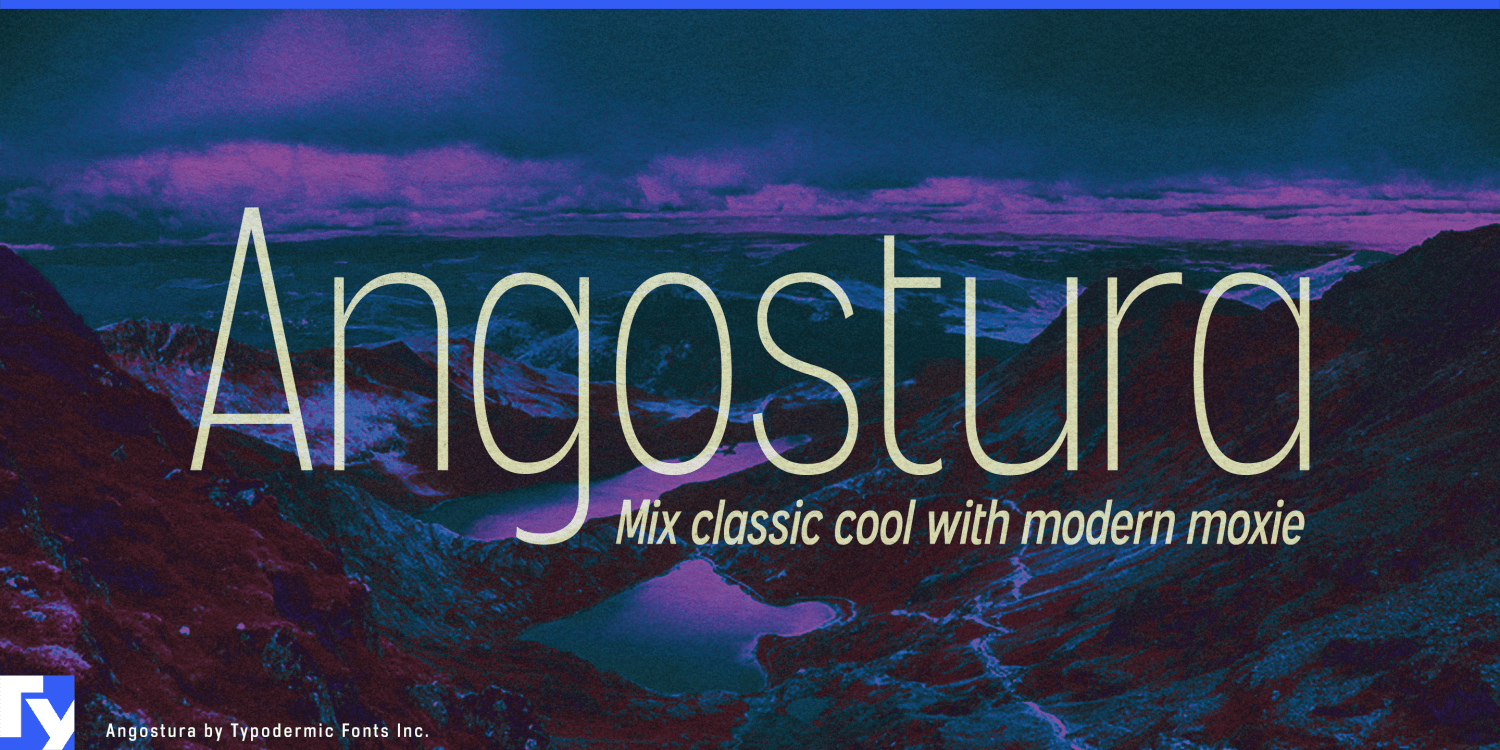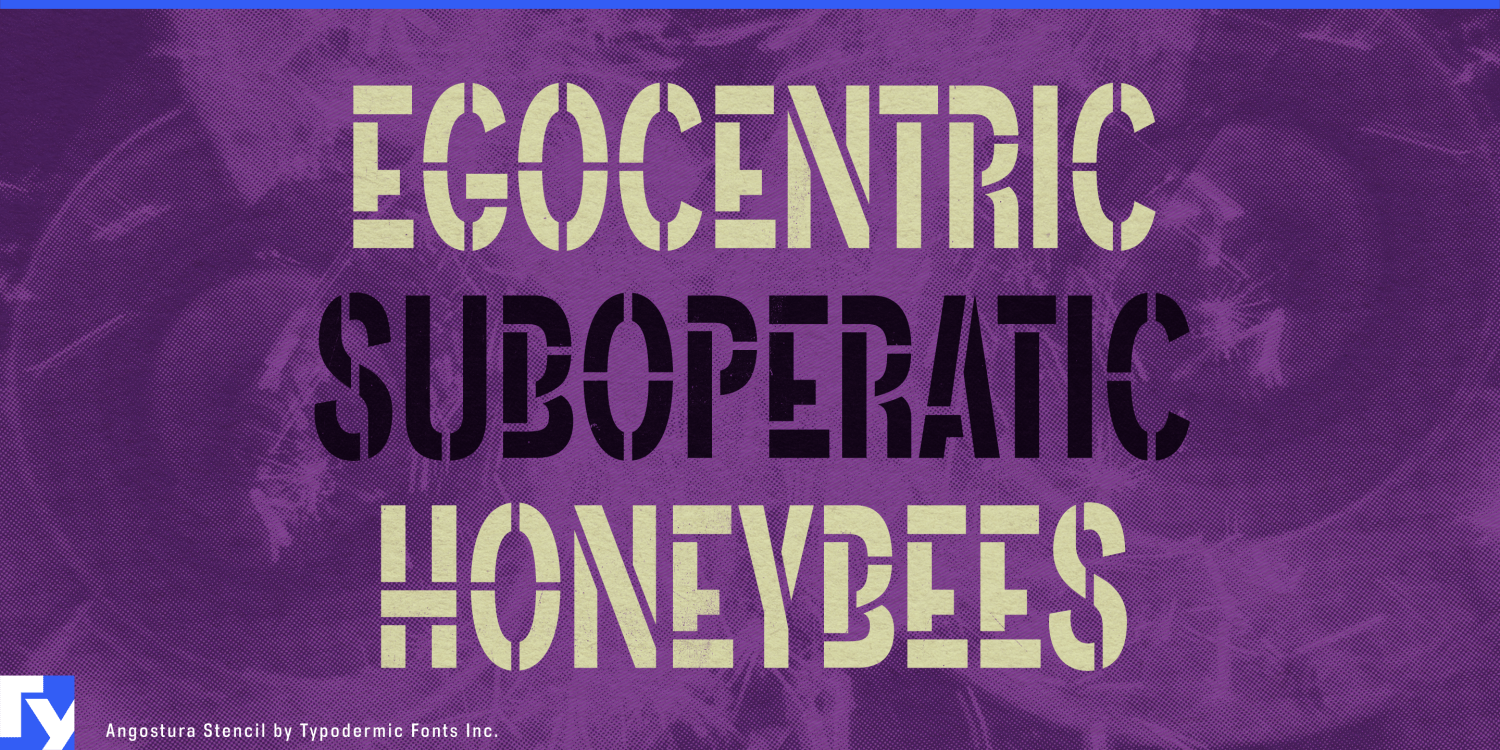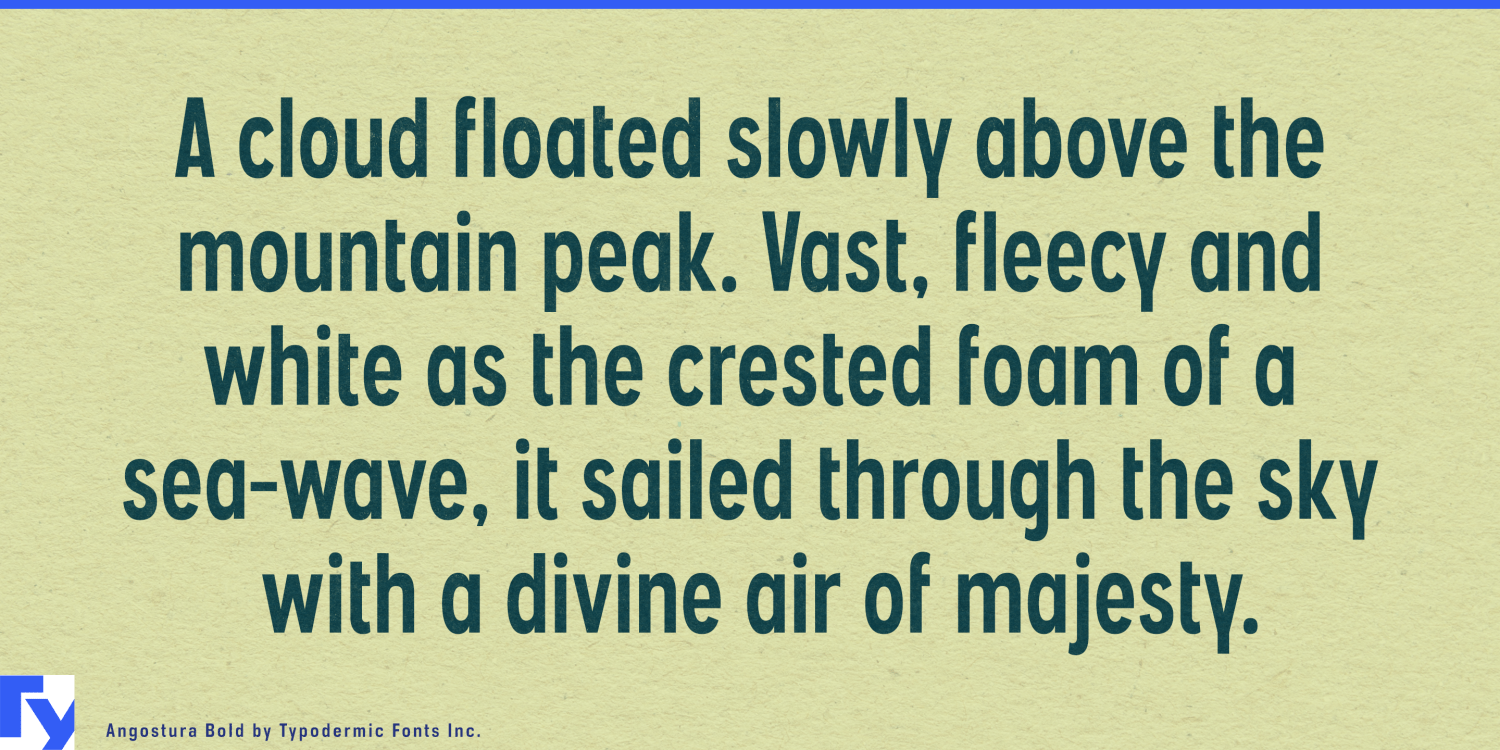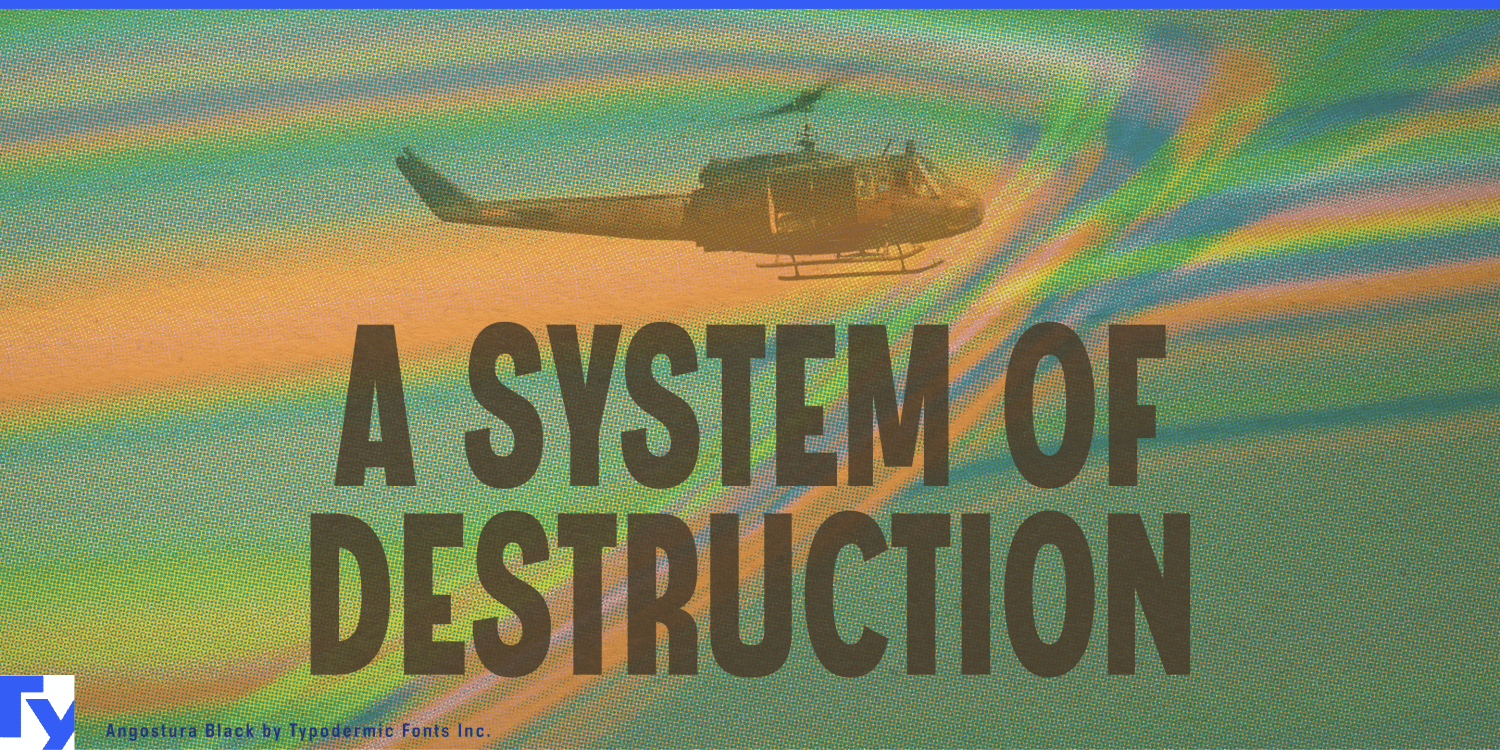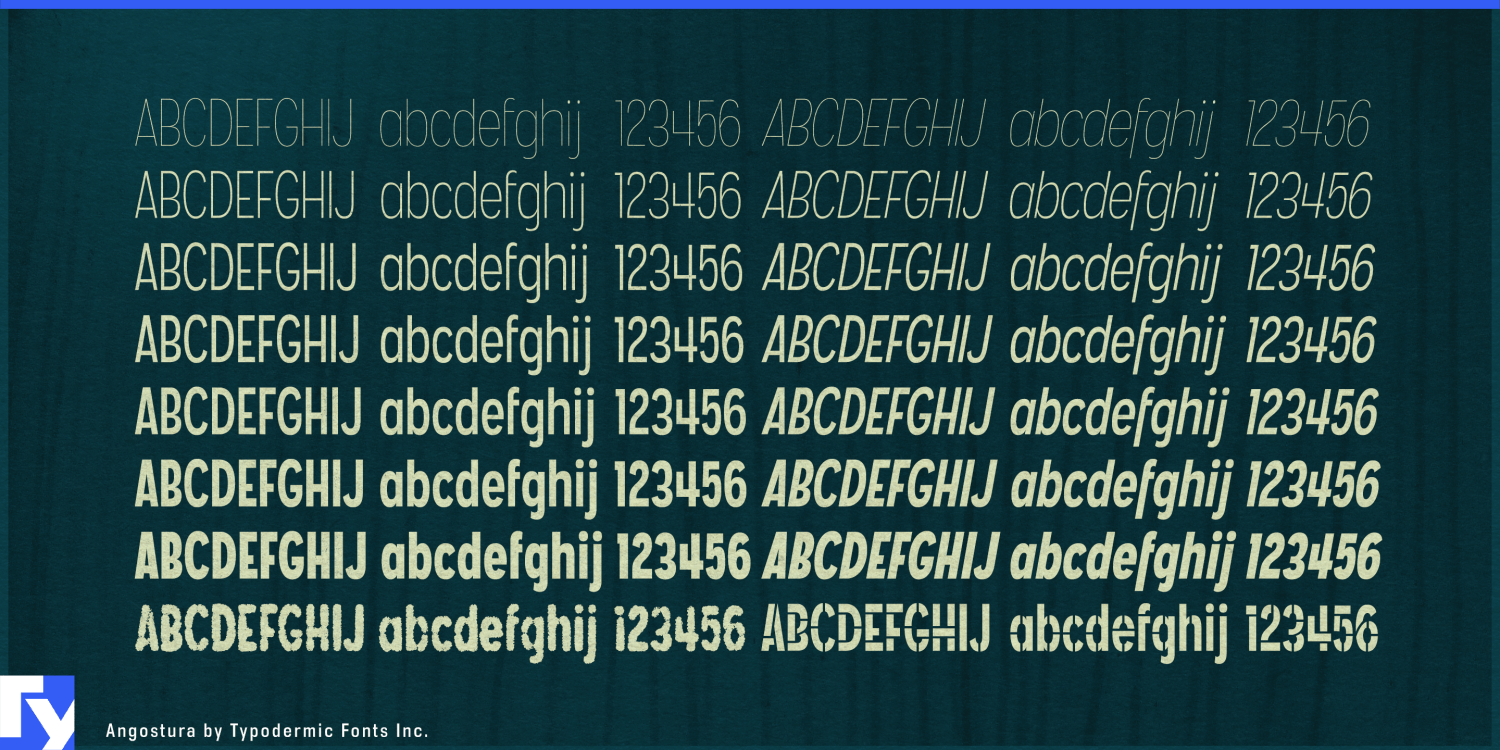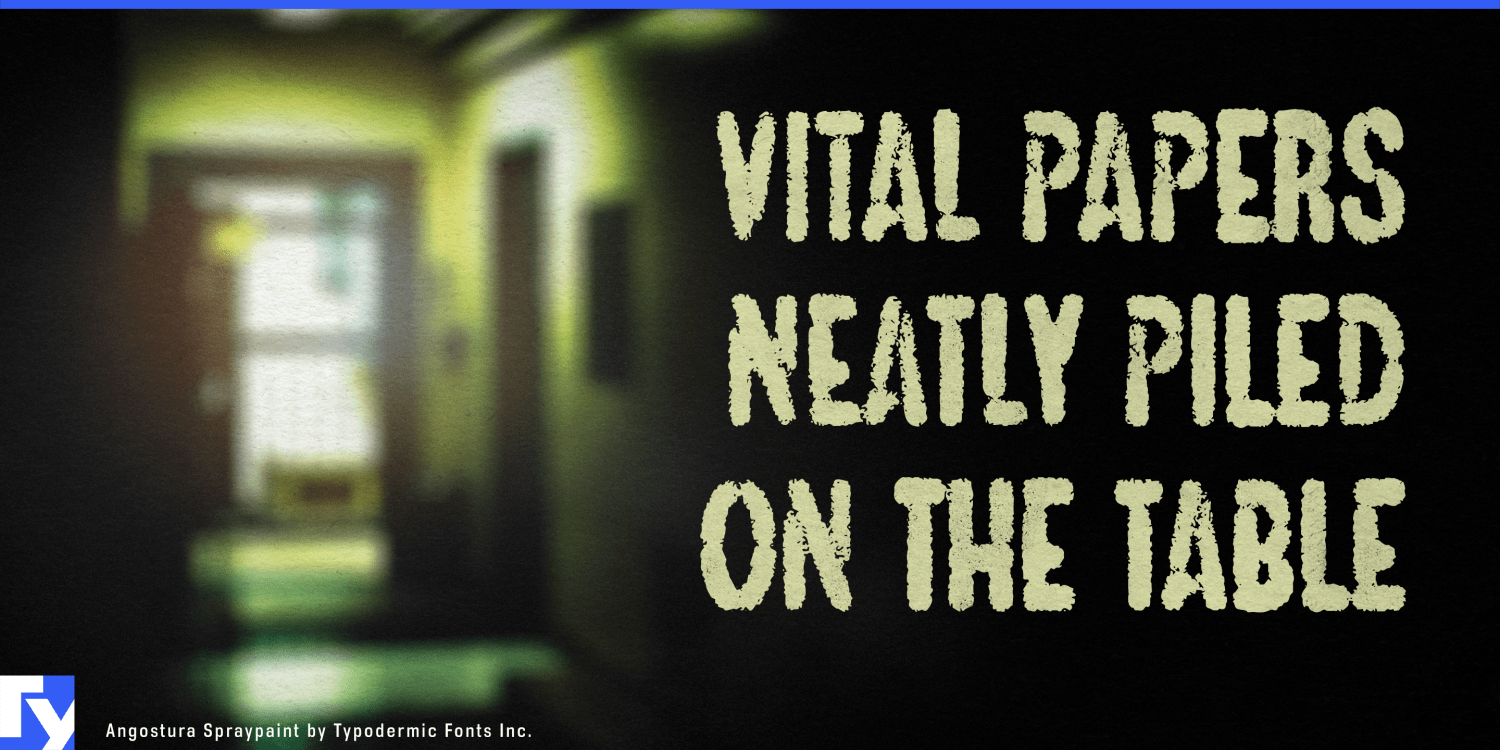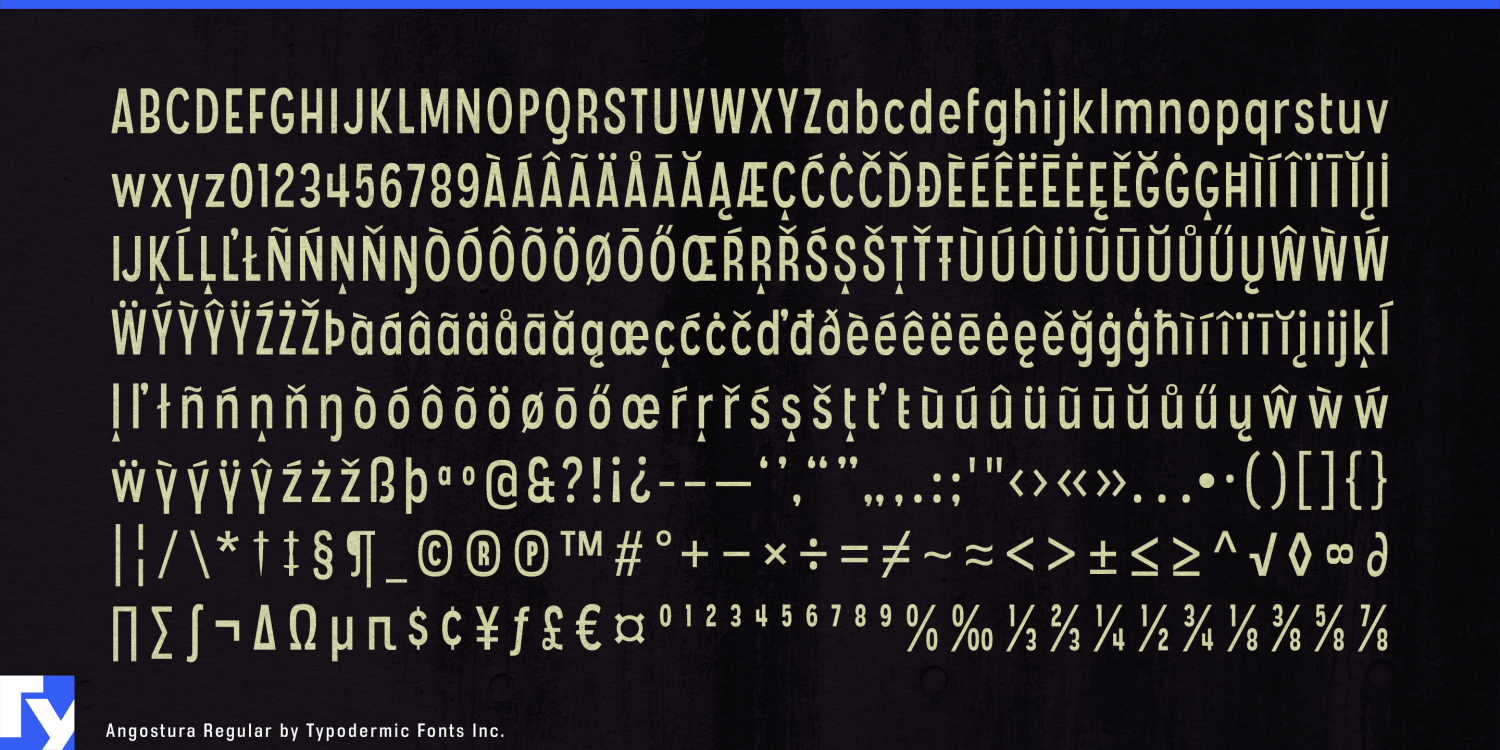
Angostura
A multi-use destination rarely has only one typographic job. The permanent identity may need to look controlled and architectural; a vendor stall, weekend tournament, construction wall or opening-night graphic may need something rougher and more immediate. Reaching for a different display font every time can quickly fragment the brand. Angostura solves that problem with a condensed sign-derived family running from Hairline through Black, then extending the same underlying voice into Stencil, Spraypaint and Wood treatments.
That range is particularly useful for adaptive-reuse food halls and market districts. Former warehouses, factories and department stores can contain restaurants, cafés, bars, retail stalls, event spaces and temporary vendors under one roof. Angostura can handle the building name, entrance fascia, tenant directory, stall numbers, pickup zones and permanent wayfinding in its clean styles; seasonal markets, guest-chef events and temporary activations can shift into the textured variants without abandoning the broader identity.
Its condensed proportions help when those environments become crowded with names. Long restaurant names can fit above narrow stalls, multiple vendors can share one directory, and event schedules can carry more information without immediately becoming dense. Hairline and Light can open up architectural graphics; Bold and Black can take over entrance signs, market banners and large venue headings.
Sport-social venues create a similar hierarchy problem. Pickleball and padel clubs, indoor golf facilities and mixed recreation spaces increasingly combine courts or simulator bays with cafés, lounges, retail counters and events. Angostura can bridge those worlds through court and bay numbers, league graphics, equipment-rental counters, tournament schedules and café signage. Regular programming can stay within the clean family, while a special tournament or one-night event can move into Spraypaint or Stencil without looking like an unrelated campaign.
EV charging destinations offer a forward-looking version of the same problem. As charging plazas add cafés, lounges, shopping and work areas, their identities need to communicate mobility and infrastructure without making every stop feel like a sterile technology installation. Angostura’s roots in mid-century American sign lettering give it enough roadside familiarity for charging bays, café signs, amenity directories and canopy graphics without turning a contemporary mobility hub into retro service-station theatre.
Angostura can also follow a development from construction to opening. Stencil, Wood and Spraypaint can contribute to preview events, temporary wayfinding and opening-soon campaigns; as the project is completed, the clean family can take over permanent signage, tenant directories and ongoing programming. The degree of finish changes while the identity remains recognizably itself.